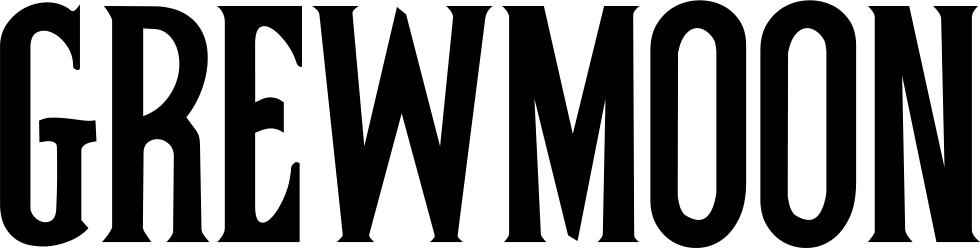
Grewmoon Font
What makes this Western font more desirable and specific for designing your typography is the appearance of its letters, which are tall, bold, and have a serif that can imbue credibility and power to the audience.
Well, for incorporating a reliable traditional image in your magazines, branding, headlines, packaging, website header, and many other creative projects, be inclined to this retro Grewmoon font to be more striking than before.